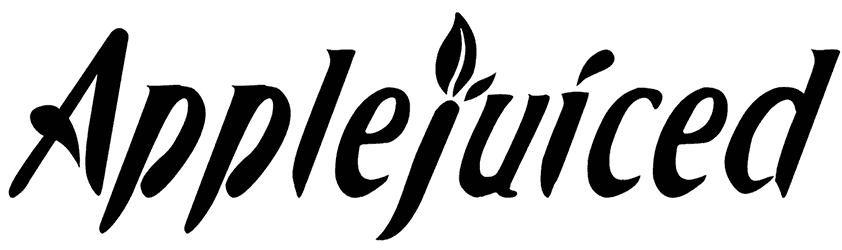
Applejuiced Font
Applejuiced is a relaxing natural themed logo font decorated with apple leaves. This handwritten and well-crafted font subtly embodies natural aesthetics and can spruce up any project. In addition, due to its simple and…
Applejuiced is a relaxing natural themed logo font decorated with apple leaves. This handwritten and well-crafted font subtly embodies natural aesthetics and can spruce up any project. In addition, due to its simple and minimal nature, it is in harmony with any design and can shine even without numbers, for the implementation of logos, posters, and any design with a spring theme.